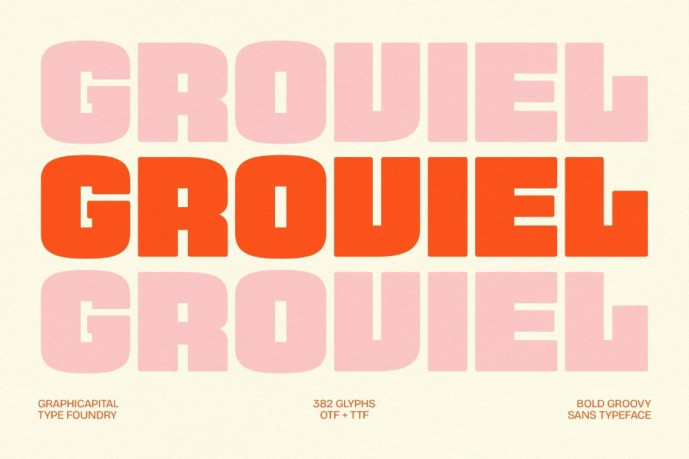
Groviel Sans Serif Font
Designer: Graphicapital
Groviel is a retro-groovy sans-serif display font with ultra-bold, rounded shapes that radiate cheerfulness and energy. Perfect for playful, standout headlines and vibrant visual designs.
Ideal for branding, posters, headlines, packaging, album art, game visuals, and promotional designs. It adds personality to any creative project and helps your message stand out effortlessly.